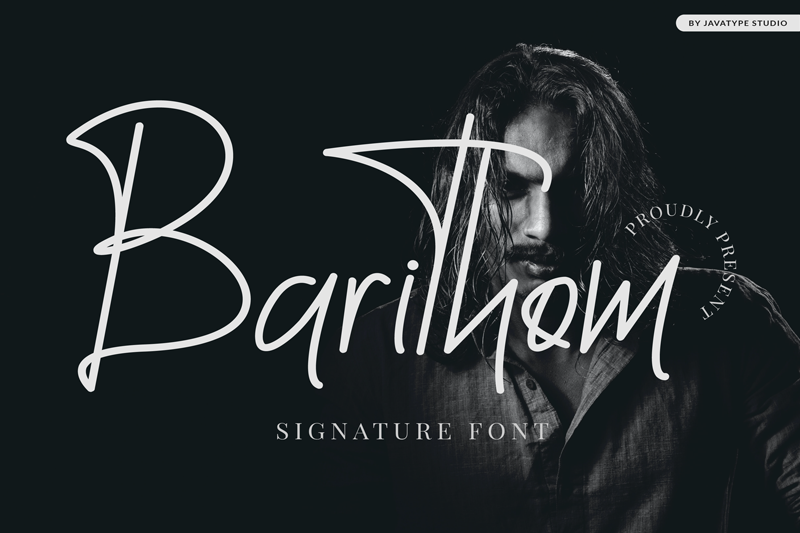
Font name: | Barithom Signature |
Author: | Javatype Studio |
Barithom is a signature monoline font with an elegant and classy style for your perfect project. Barithom would perfect for photography, watermark, social media posts, advertisements, logos & branding, invitation, product designs, label, stationery, wedding designs, product packaging, special events, or anything that needs handwriting taste. NOTE: This demo font is for PERSONAL USE ONLY! But any donation are very appreciated Paypal account for donation: http://paypal.me/tyoyulianto link to purchase full version and commercial license https://fontbundles.net/javatype-studio/1131747-asittany-a-handwritten-font please visit and follow my portfolio update: 1. dribbble https://dribbble.com/javatypestd 2.Behance https://www.behance.net/javatypestd 3.Pinterest https://id.pinterest.com/javatypestd/pins/ 4. Instagram https://www.instagram.com/java_type.std/ 5. Facebook https://web.facebook.com/javatype.std/ Thank You |